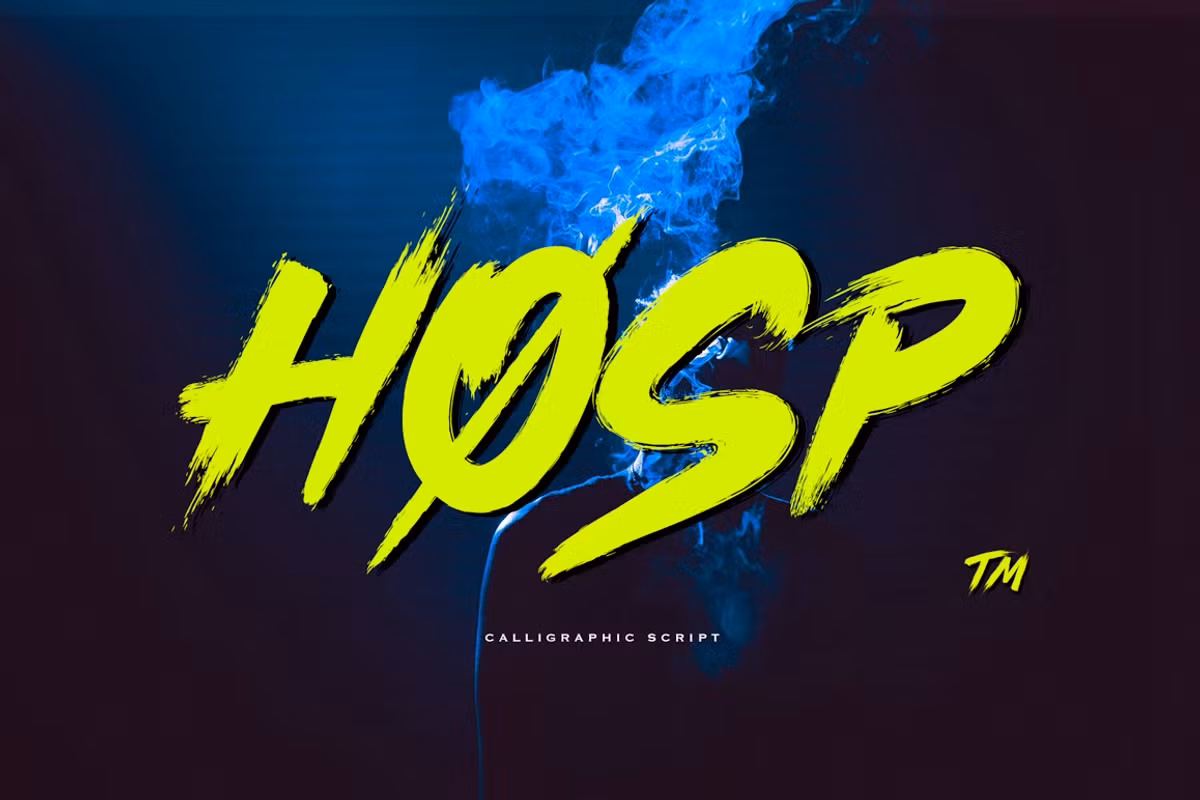
Hosp Brush Font Free Download
Add a personal and artistic touch to your designs with Hosp Brush Font Free Download — a handcrafted typeface created using a pointed brush. Its ink spots and slight imperfections add depth and character, making it perfect for projects that require a humanistic and expressive feel.
Ideal for branding, logos, posters, social media graphics, and any design that benefits from a creative and authentic appearance, Hosp Brush brings a unique flair to your typography.